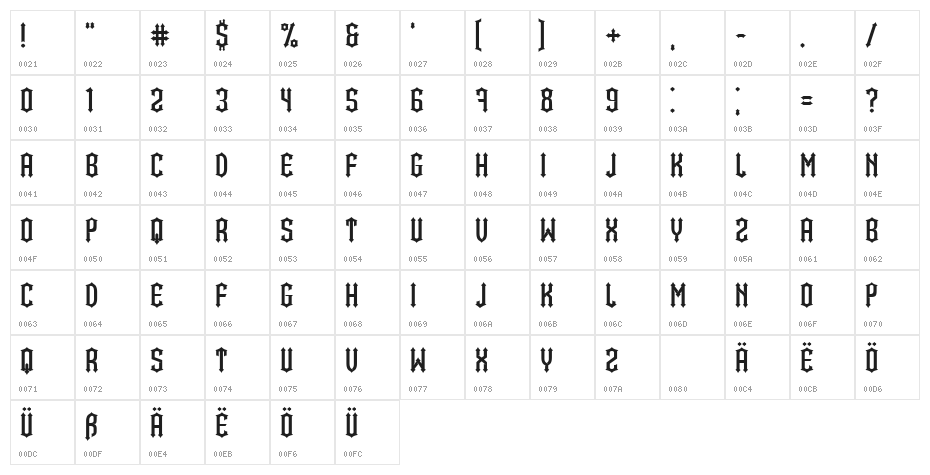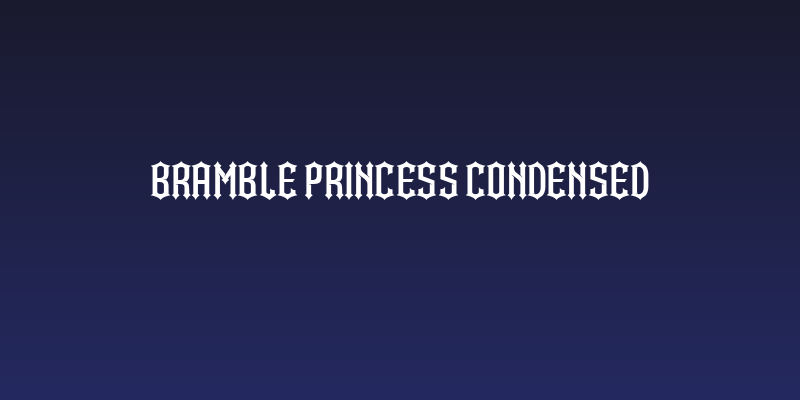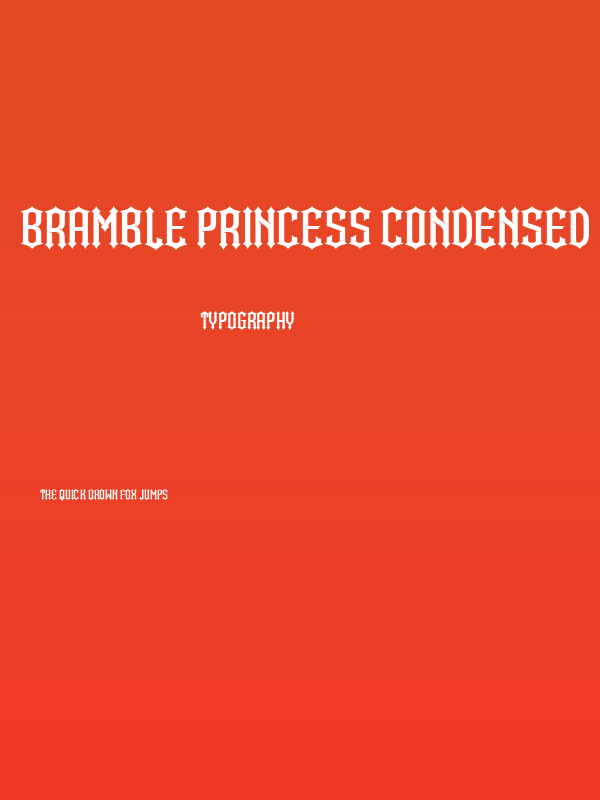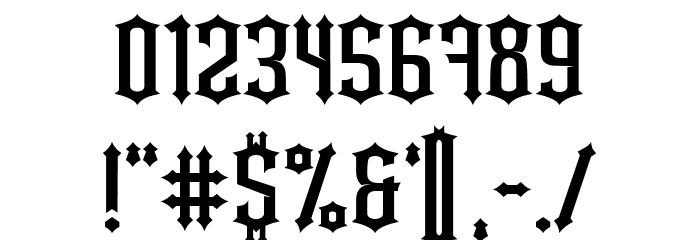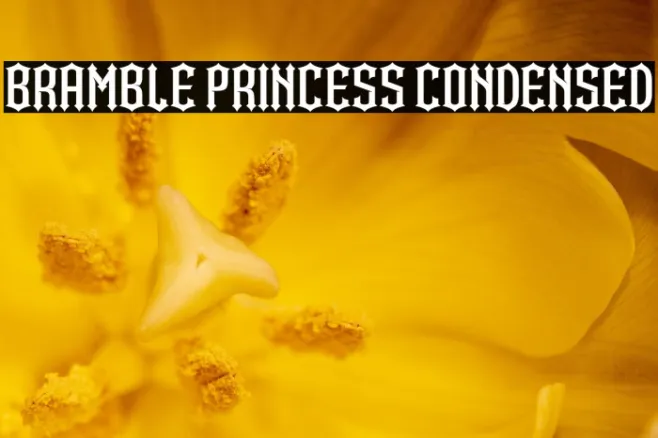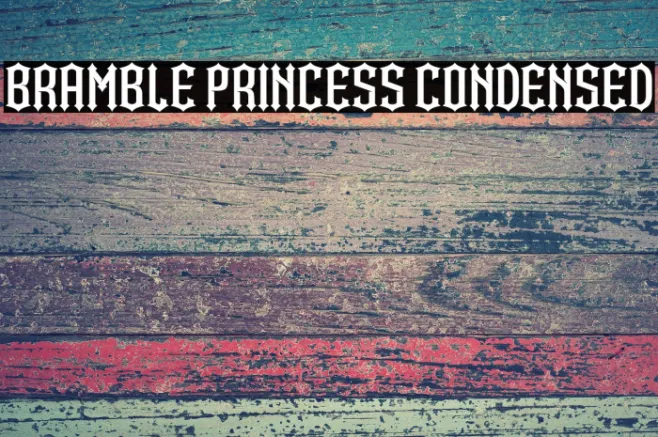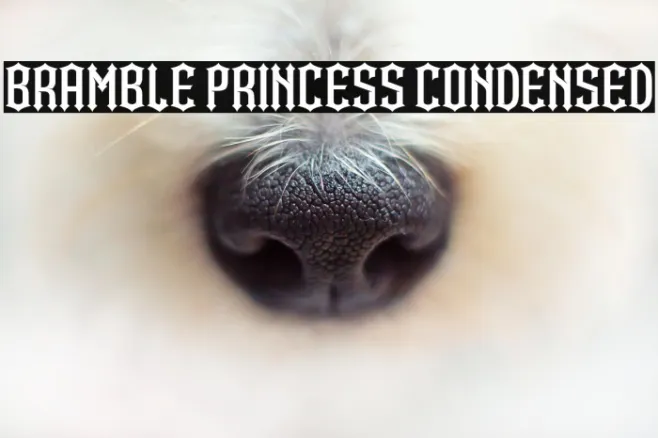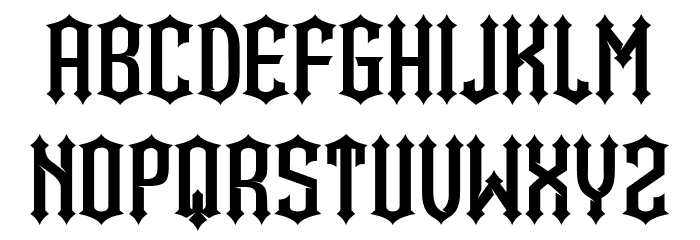
Bramble Princess Condensed Font
Bramble Princess Condensed Description
This font features a bold, decorative style with sharp, angular edges and a condensed form. The characters are reminiscent of Gothic or Blackletter styles, with a modern twist. The uppercase and lowercase letters maintain a consistent height, giving the font a uniform appearance. The numbers and special characters follow the same design principles, ensuring cohesion across all elements. The font's unique aesthetic makes it suitable for projects that require a dramatic and eye-catching typeface.
| Overall Style | Modern Gothic |
| Proposed Projects | Ideal for use in branding, posters, album covers, and any design that seeks to convey a sense of drama and boldness. |